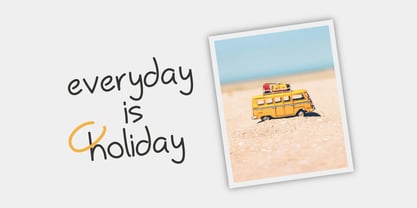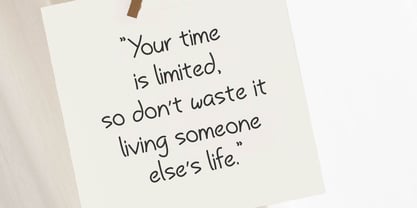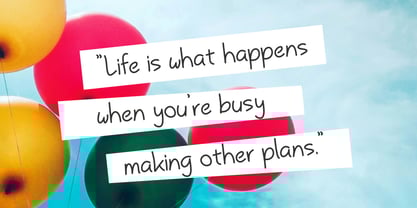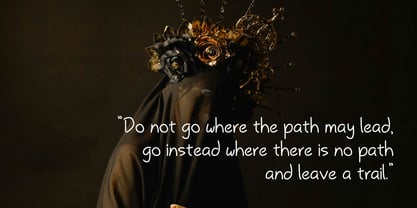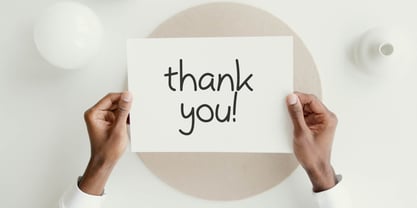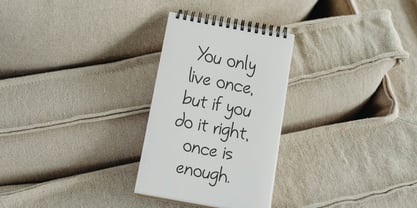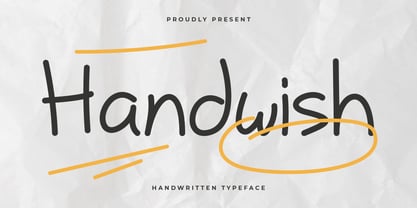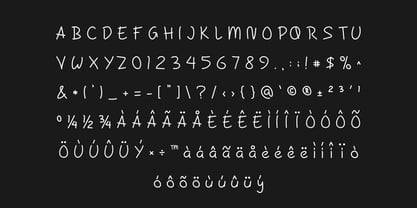
Handwish
by Artiveko
The Handwish Font Family was designed by Iwan Alwan and published by Artiveko. Handwish contains 2 styles and family package options.
Handwish is a charming handwritten font that brings a personal, artistic touch to your designs. With its flowing strokes, playful rhythm, and naturally imperfect lines, Handwish feels like a note written from the heart — warm, expressive, and full of character. Perfect for branding, social media graphics, invitations, packaging, and creative projects that need a human feel.
Crafted to look effortlessly stylish, Handwish includes uppercase and lowercase letters, multilingual support, and a lovely set of ligatures and alternates that enhance its handwritten authenticity. Whether you're writing a heartfelt quote, designing a lifestyle brand, or crafting cozy product labels, Handwish adds a joyful, handcrafted spirit to every word.
Let your message feel real, kind, and beautifully made — with Handwish, the handwritten font that turns words into a warm gesture.